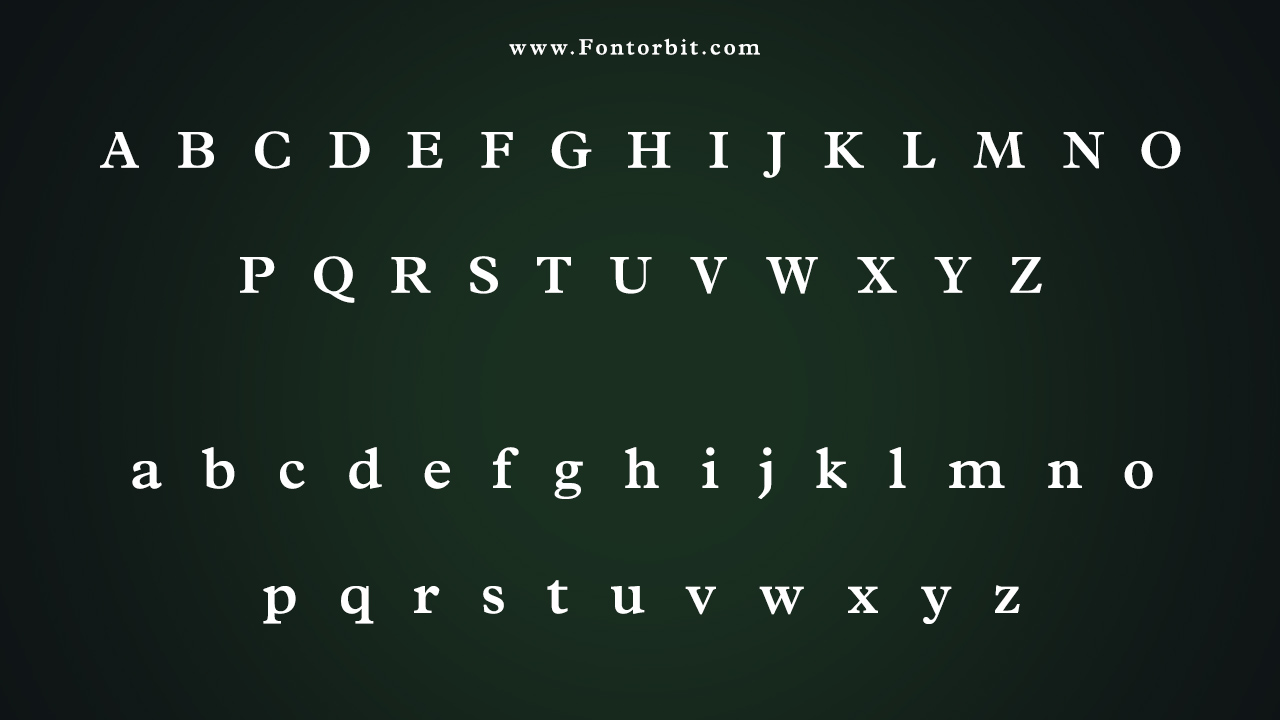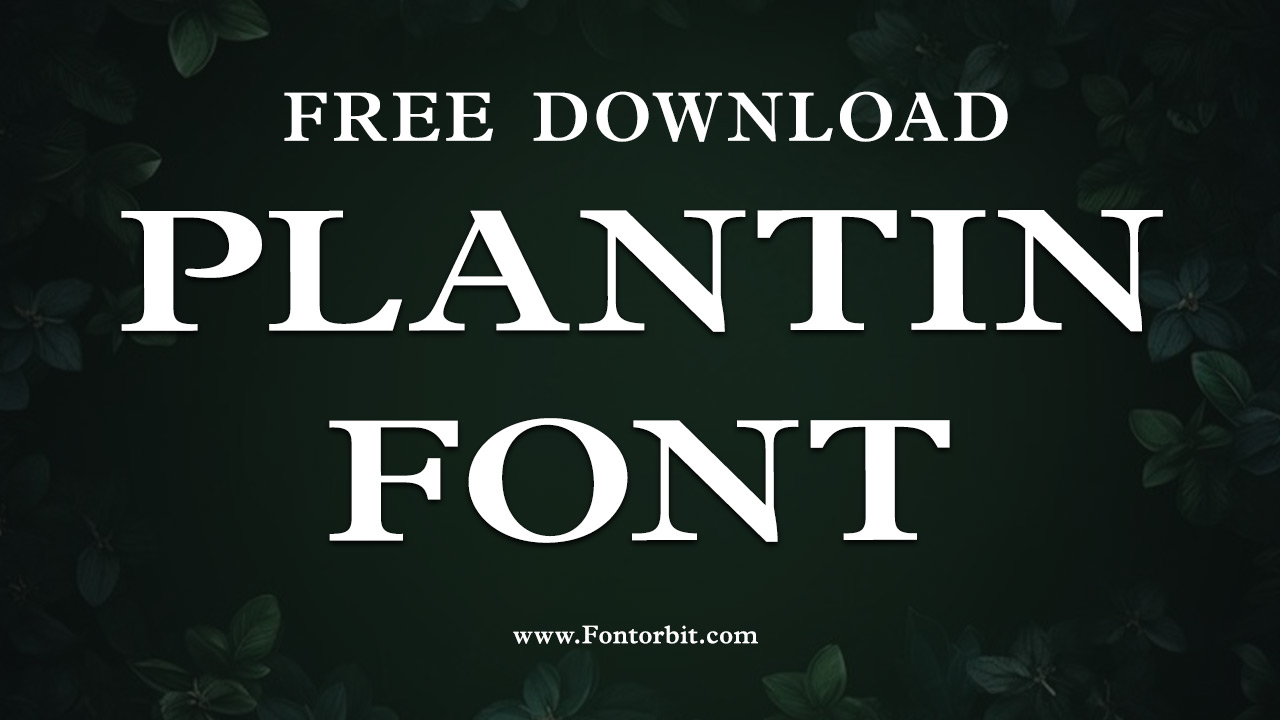
Robert Granjon and Frank Hinman Pierpont designed the Plantin Font Family, which Monotype published. The Plantin family includes 9 styles and various package options.
Monotype was first published in 1913, and designers recognize it for its refined, legible design. As a serif font, it is revered for its historical significance and versatility.
Plantin Family Includes
Plantin offers a range of weights and styles that cater to various design needs. It includes:
- Plantin Pro Light
- Plantin Pro Light Italic
- Plantin Pro Roman
- Plantin Pro Italic
- Plantin Pro Semibold Italic
- Plantin Pro Semi Bold
- Plantin Pro Bold Italic
- Plantin Pro Bold
- Plantin Pro Condensed Bold
- Plantin MT Pro Bold
- Plantin MT Pro Bold Italic
- Plantin MT Pro Light
- Plantin MT Pro Light Italic
- Plantin MT Pro Regular
- Plantin MT Pro Italic
- Plantin MT Pro Semi Bold Italic
- Plantin MT Pro Semi Bold
Notable Uses Of Plantin
Plantin is widely used in editorial design, books, and academic papers. Its classic design makes it ideal for projects that require a touch of elegance and readability, such as:
- Academic journals
- Classic literature
- High-quality print materials
Plantin is best suited for any formal or traditional design work where readability and elegance are priorities. It works well for:
- Books and publications
- Professional reports
- Invitations and stationery
The Plantin Pro typeface family is a versatile and elegant choice for a wide range of design projects. Its various weights and styles provide flexibility and readability, making it suitable for both print and digital applications.
Whether you’re working on formal publications or modern designs, Plantin Pro’s classic charm and professional quality can enhance your work with sophistication and clarity.
3.What Is The Best Use Case For Plantin?
It is ideal for print materials and formal publications.
4.Is Plantin A Web-Friendly Font?
While primarily used in print, it can be used on the web with proper web font embedding.
6.Does Plantin Support Multiple Languages?
Yes, it includes support for a range of languages.